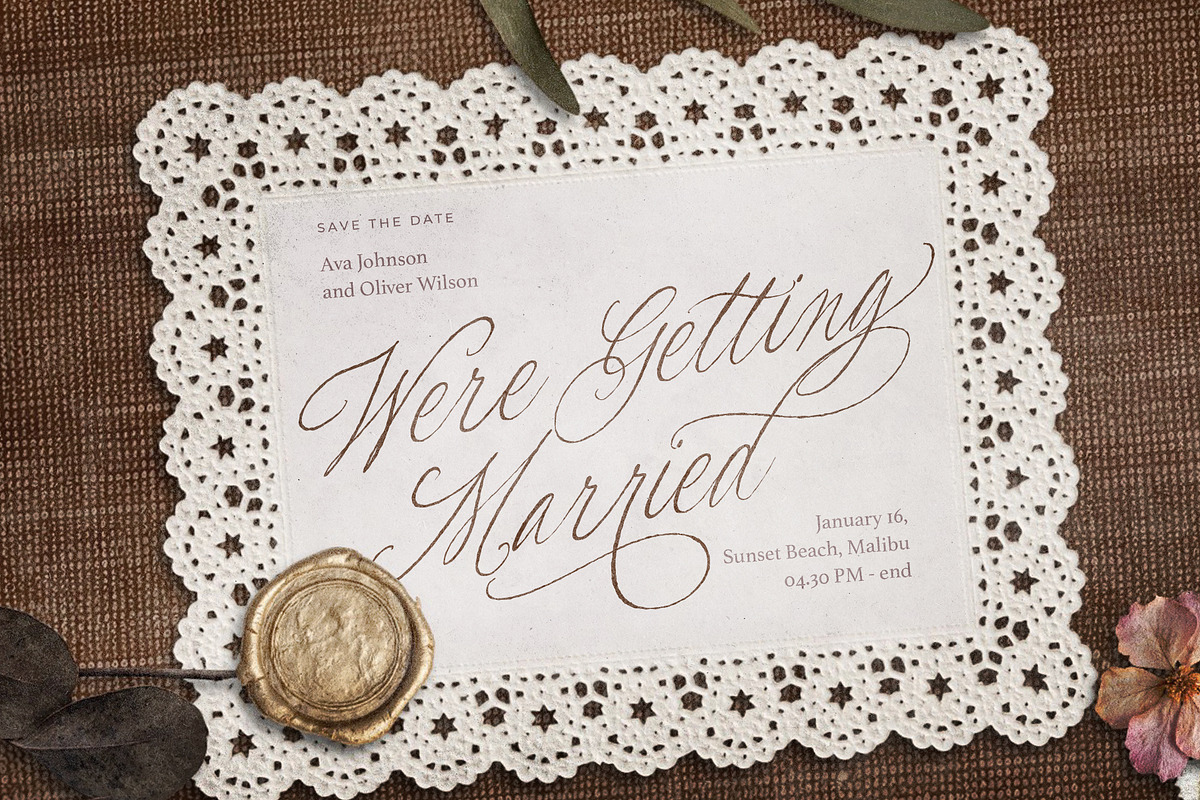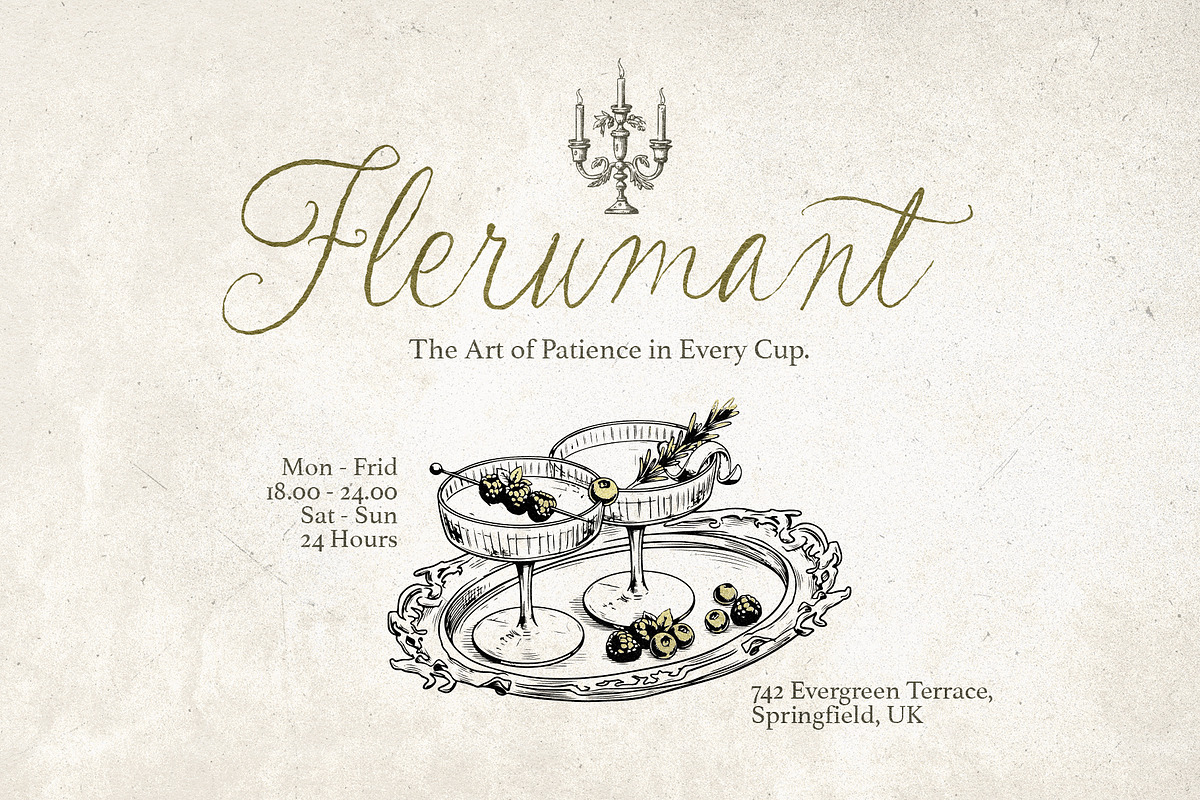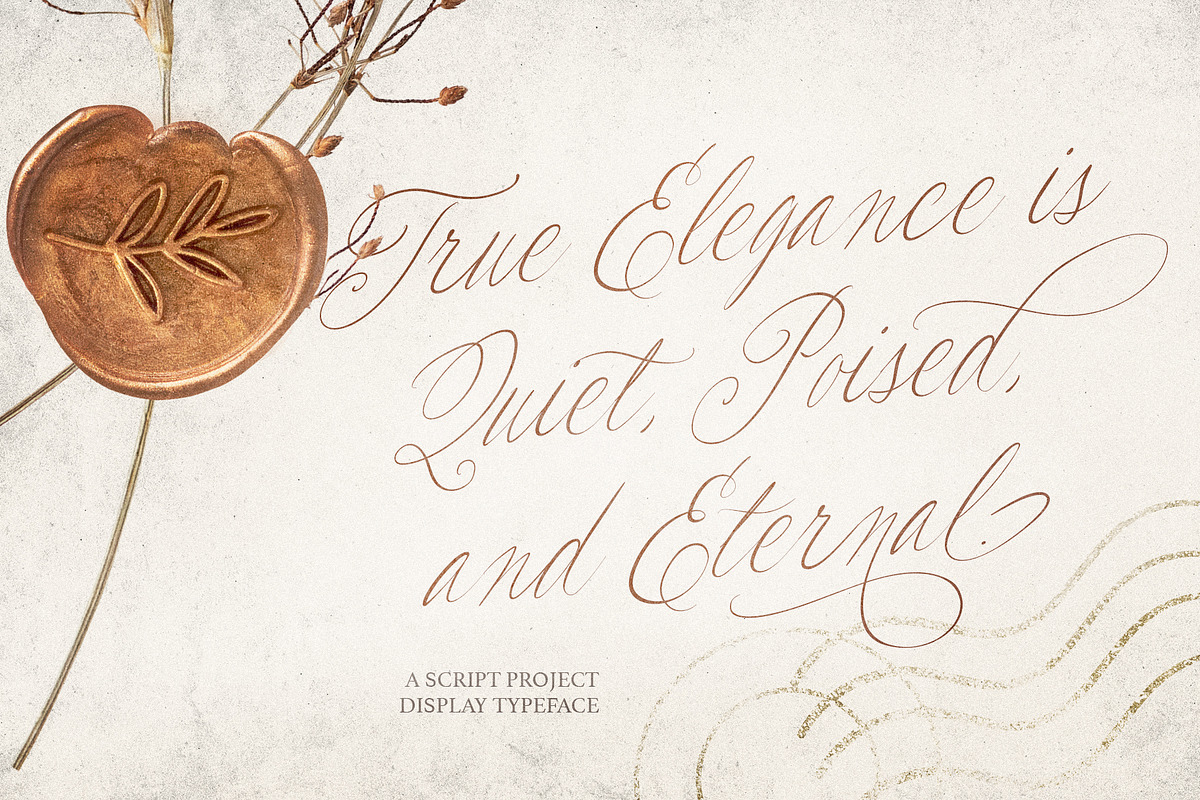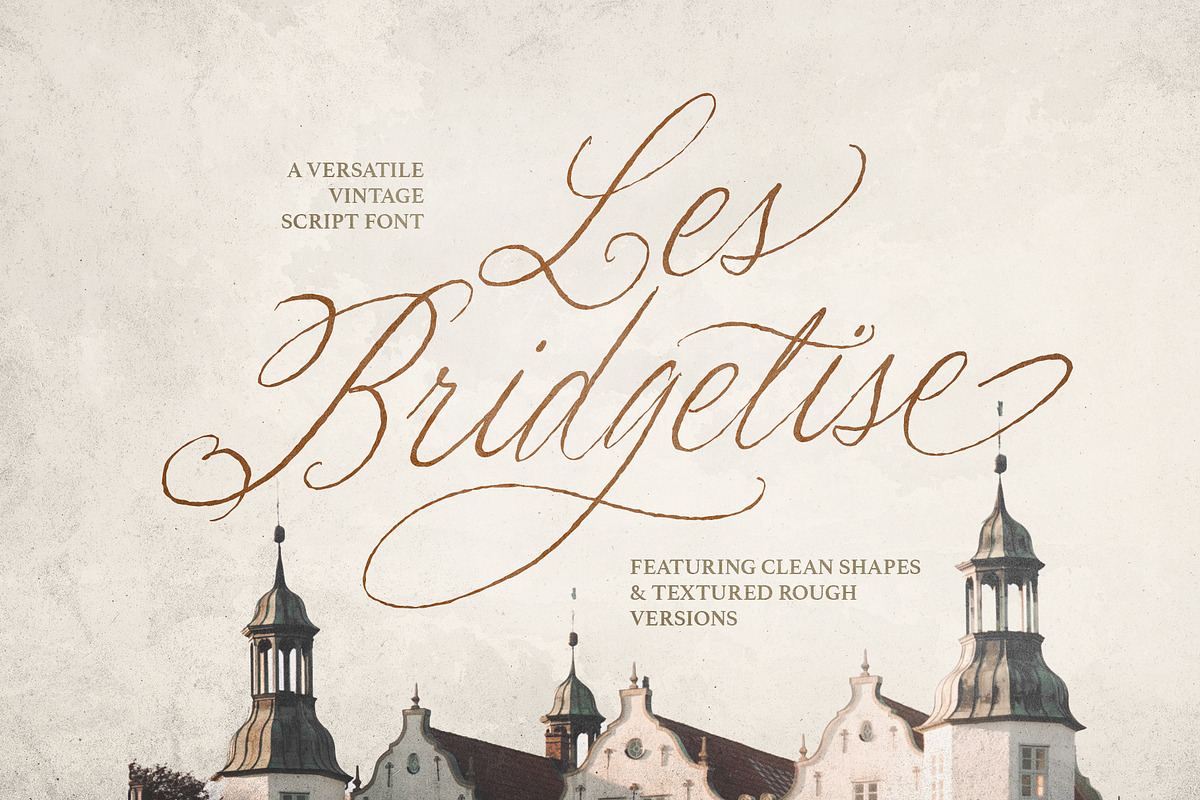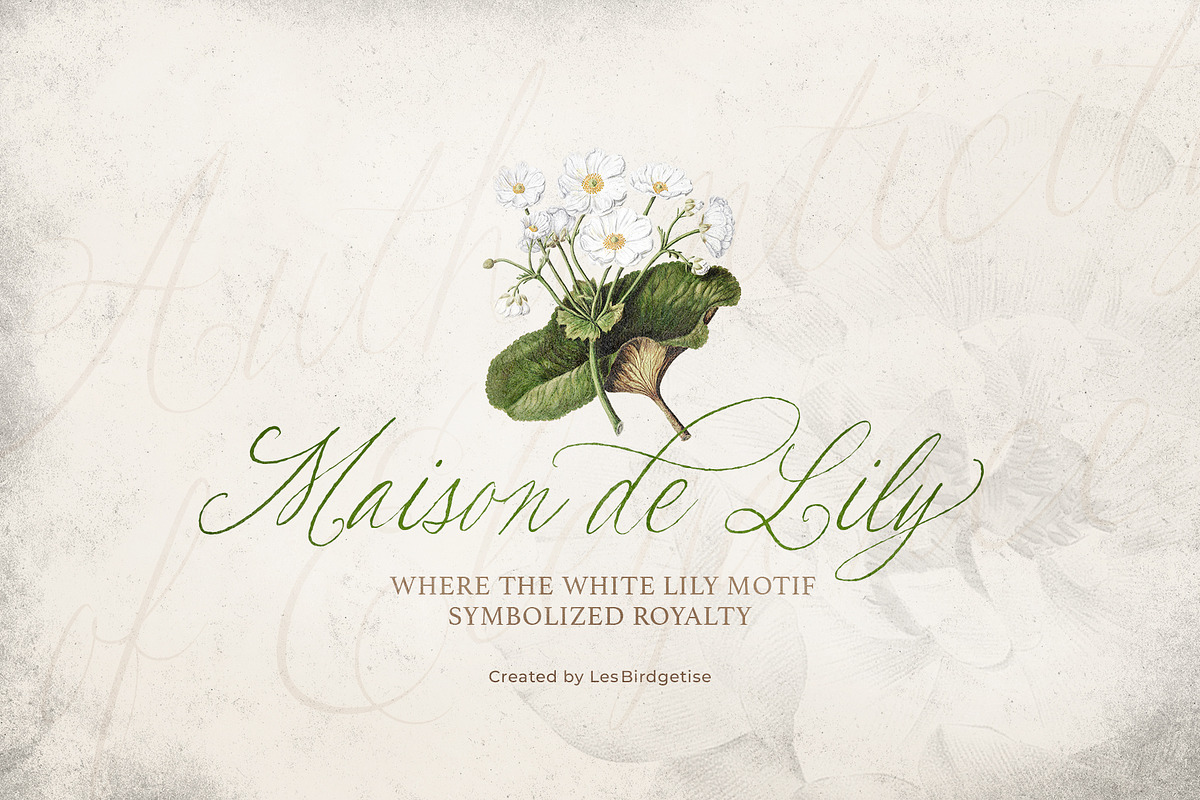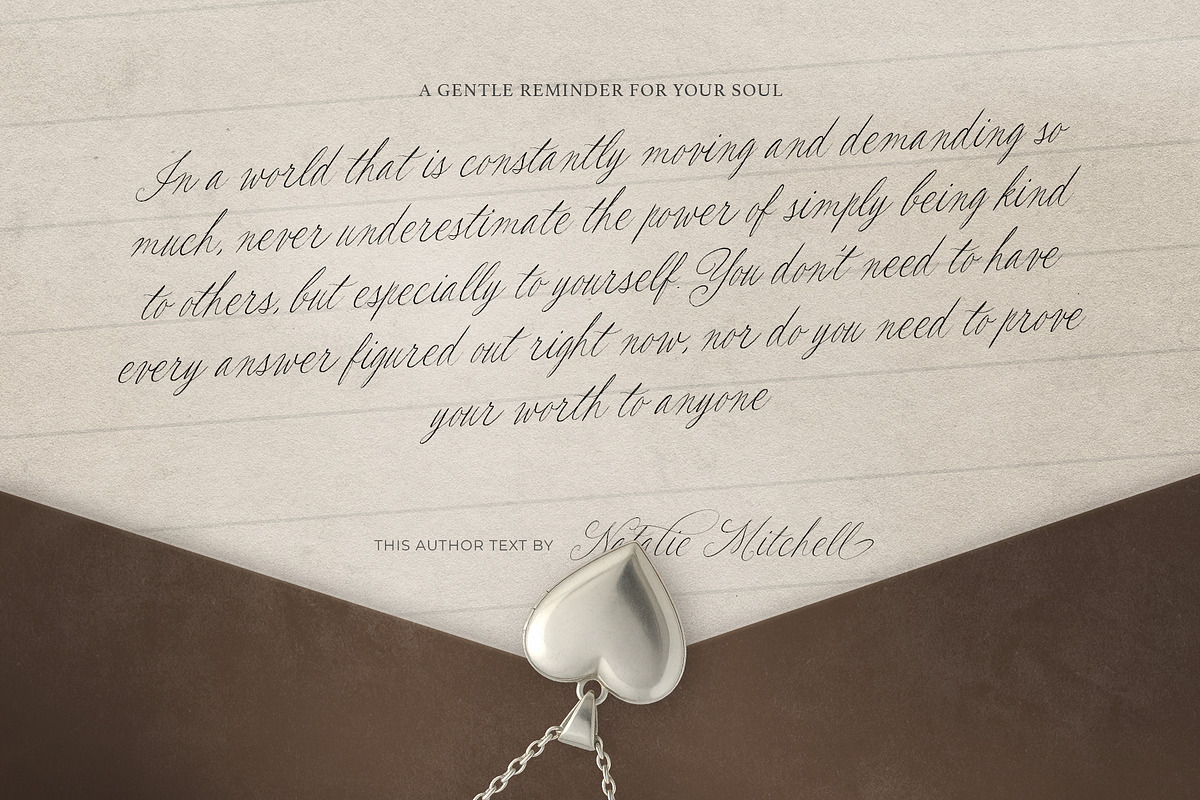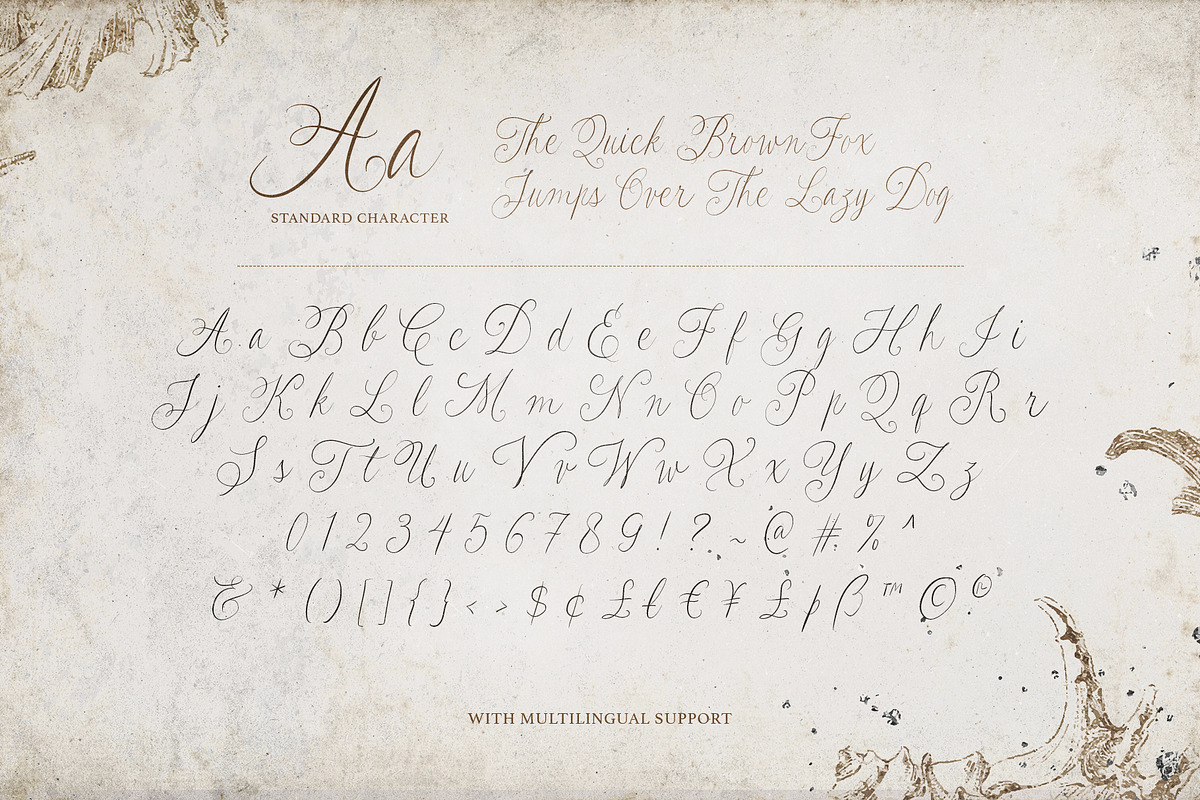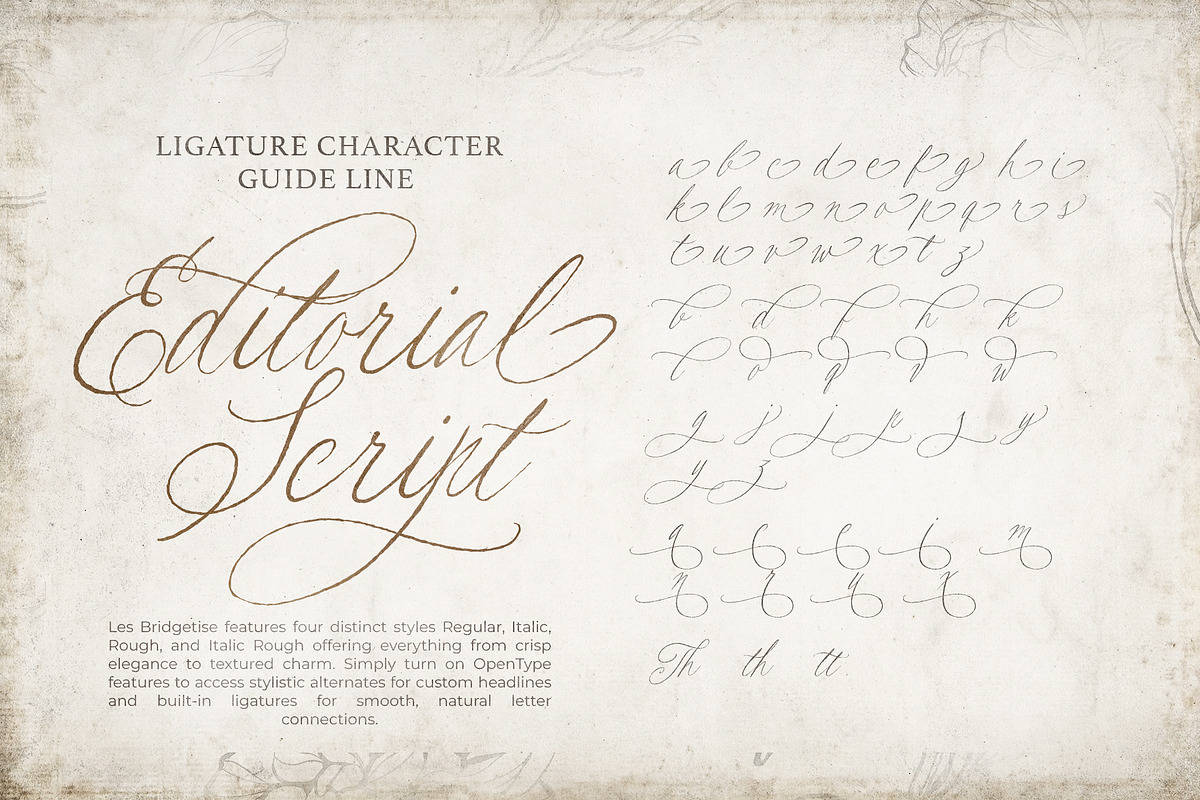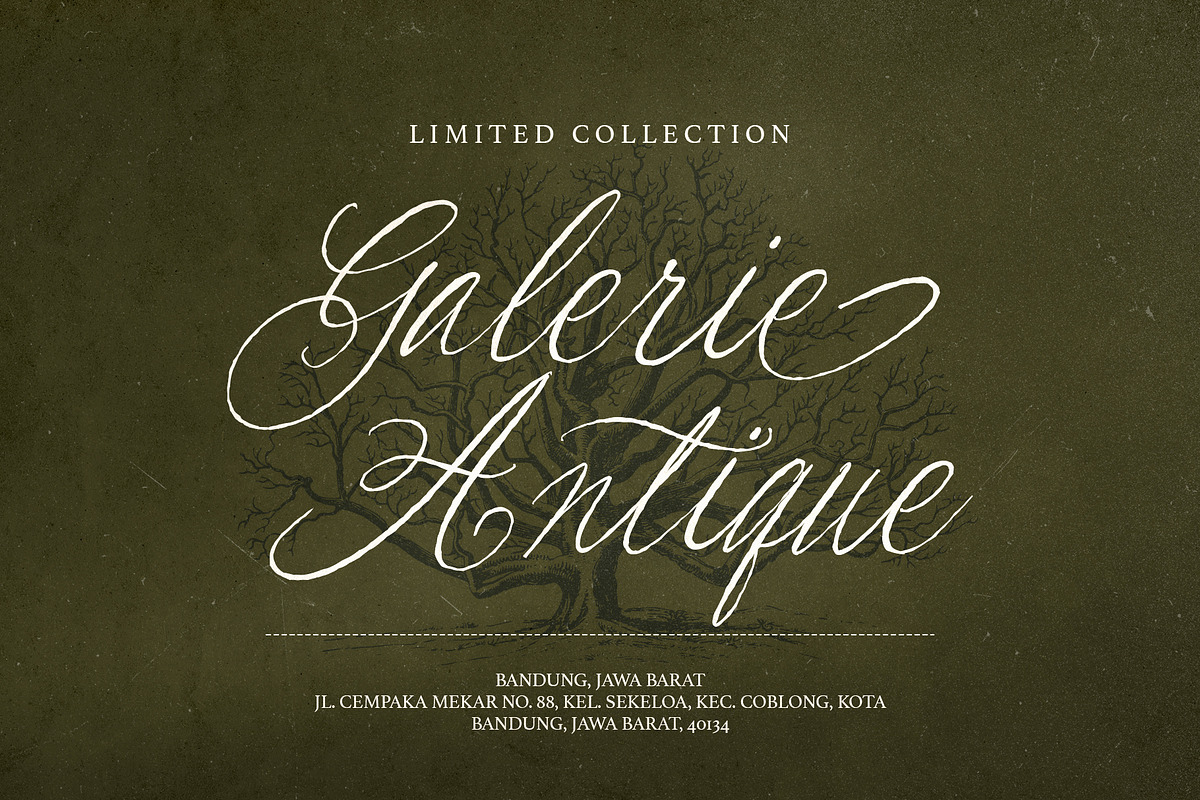
Les Bridgetise - Old Cursive Script
Introducing Les Bridgetise, a charming handwritten script font inspired by old-fashioned lettering and nostalgic memories. This versatile typeface comes with both Regular and Rough versions that each have the italic version, giving you the freedom to choose the perfect style for your project. The Regular version offers a clean, elegant, and refined appearance, while the Rough version brings a more authentic, raw, and naturally handwritten feel. With Alternates and ligatures that will make your project looks stunning. Perfect for wedding invitations, signatures, logos, quotes, branding, stationery, packaging, and more, this script adds timeless character and warmth to every design. This font also includes multilingual support, making it a versatile choice for creative projects around the world.